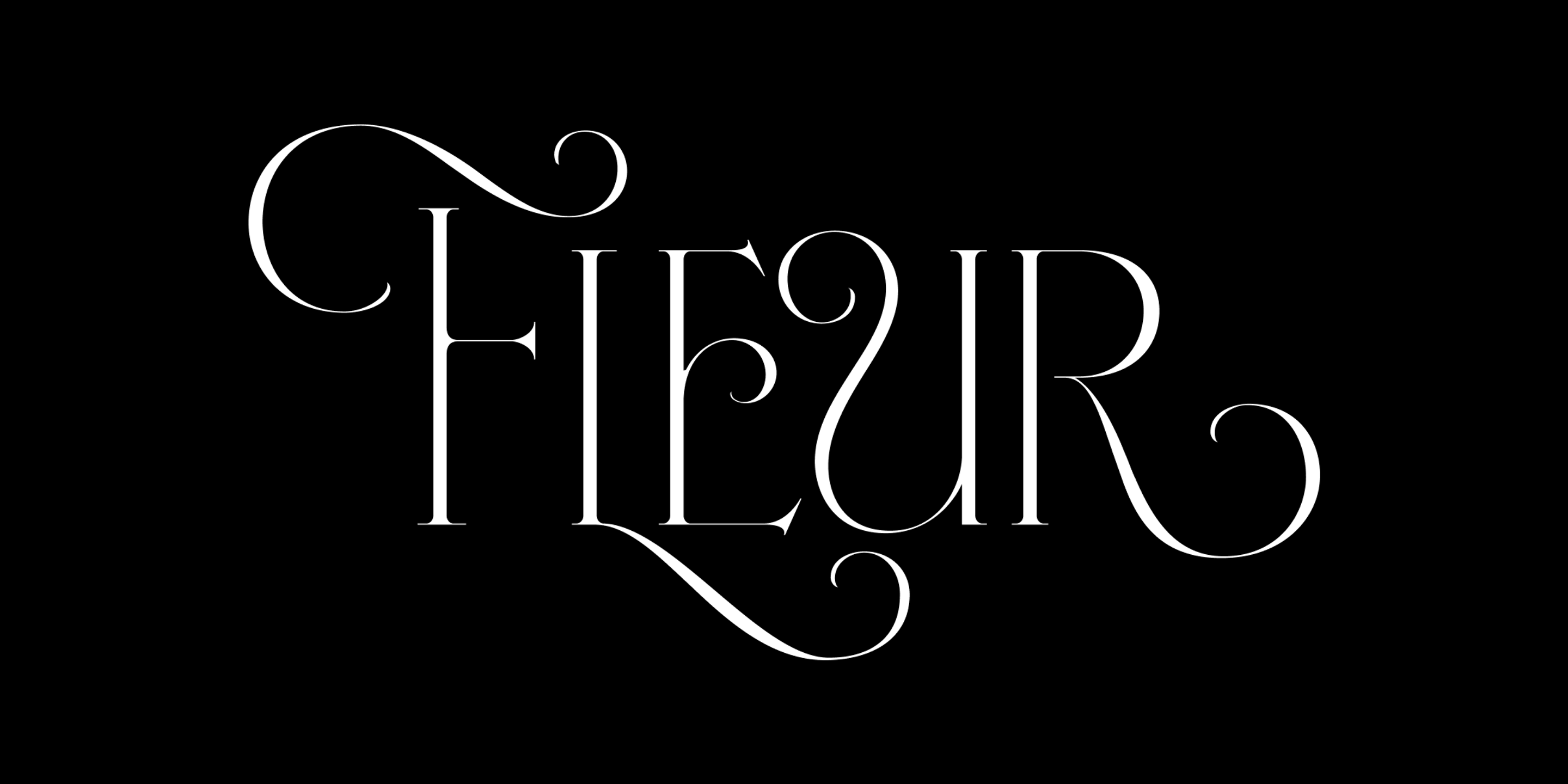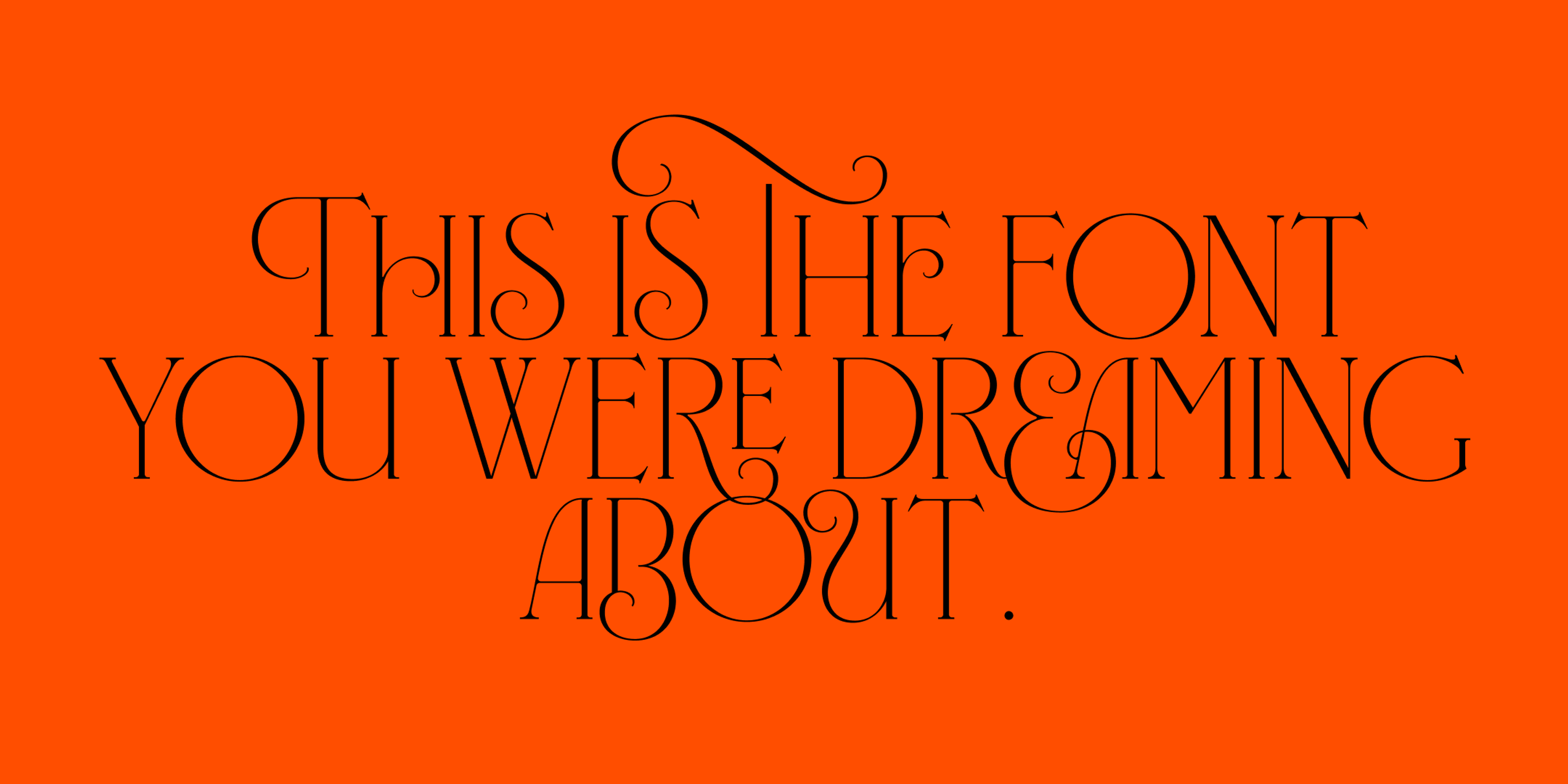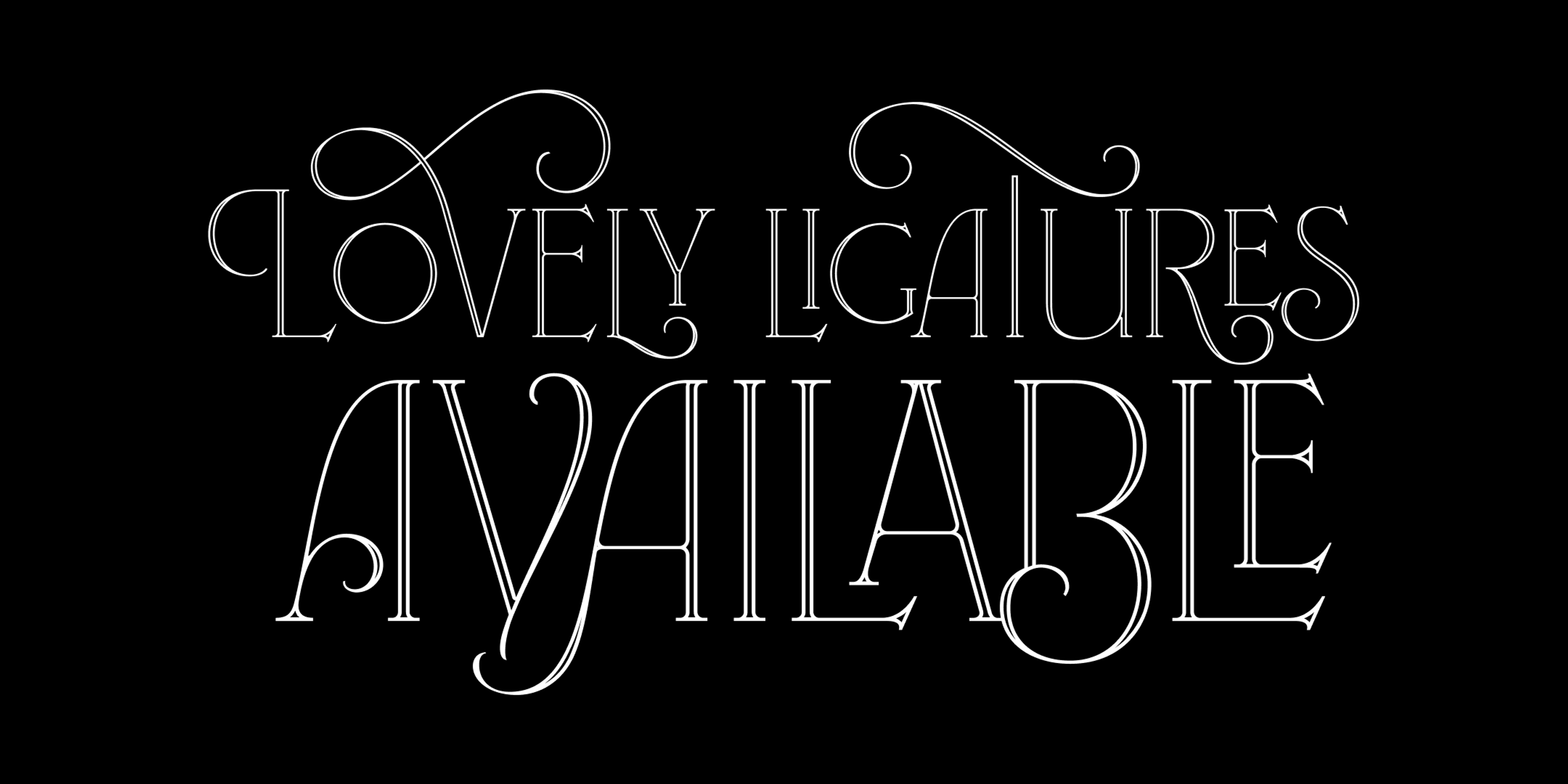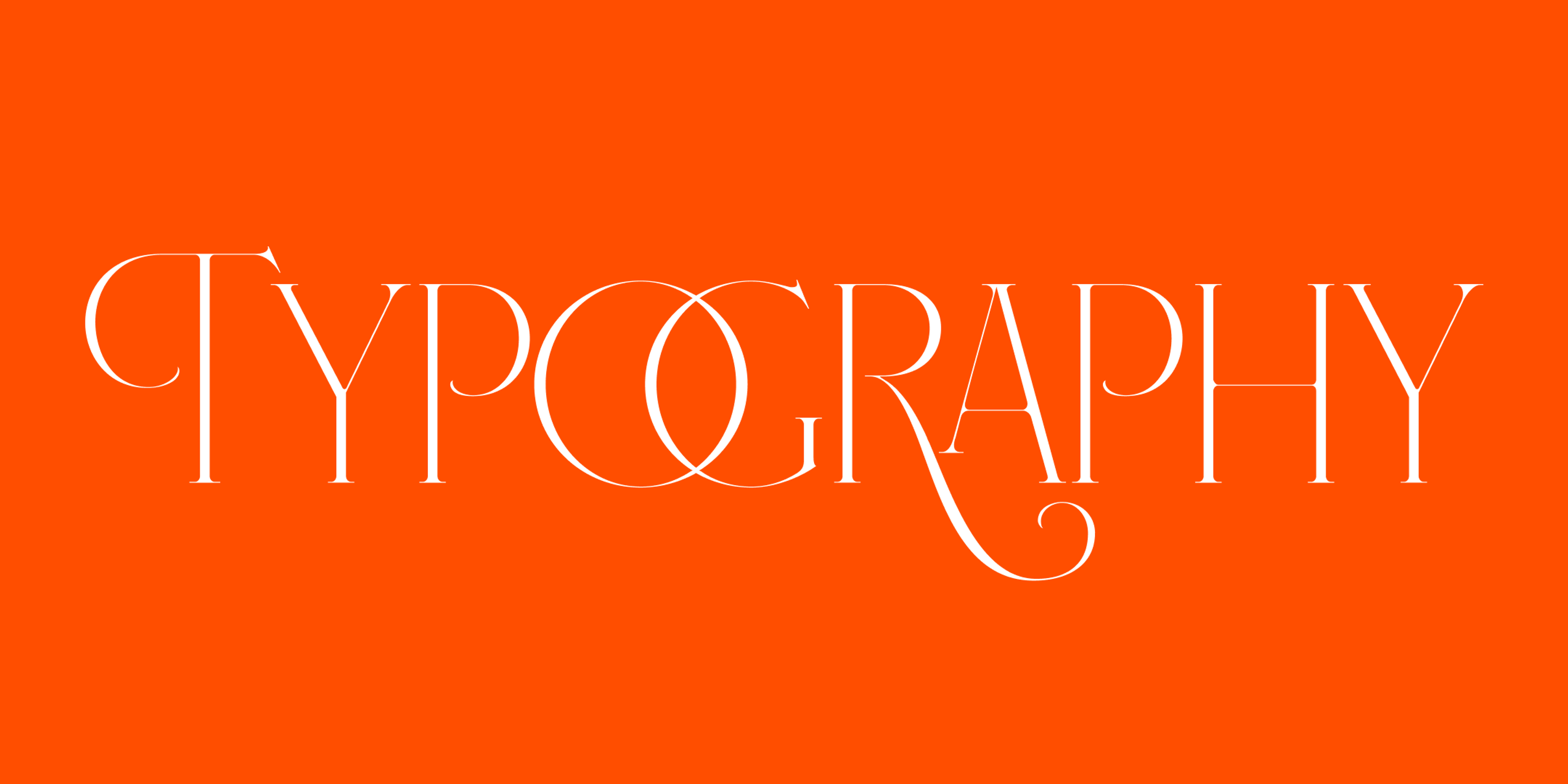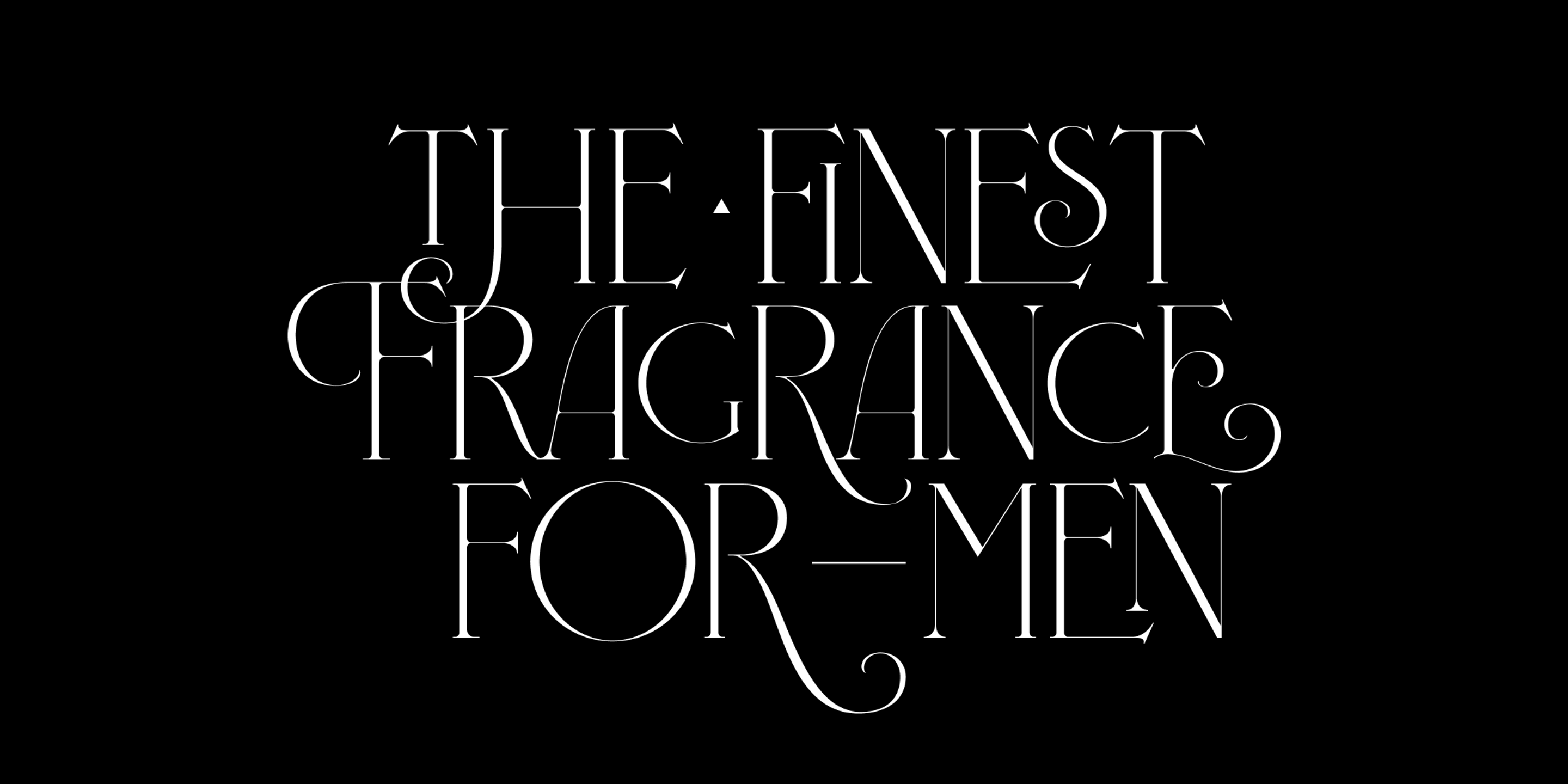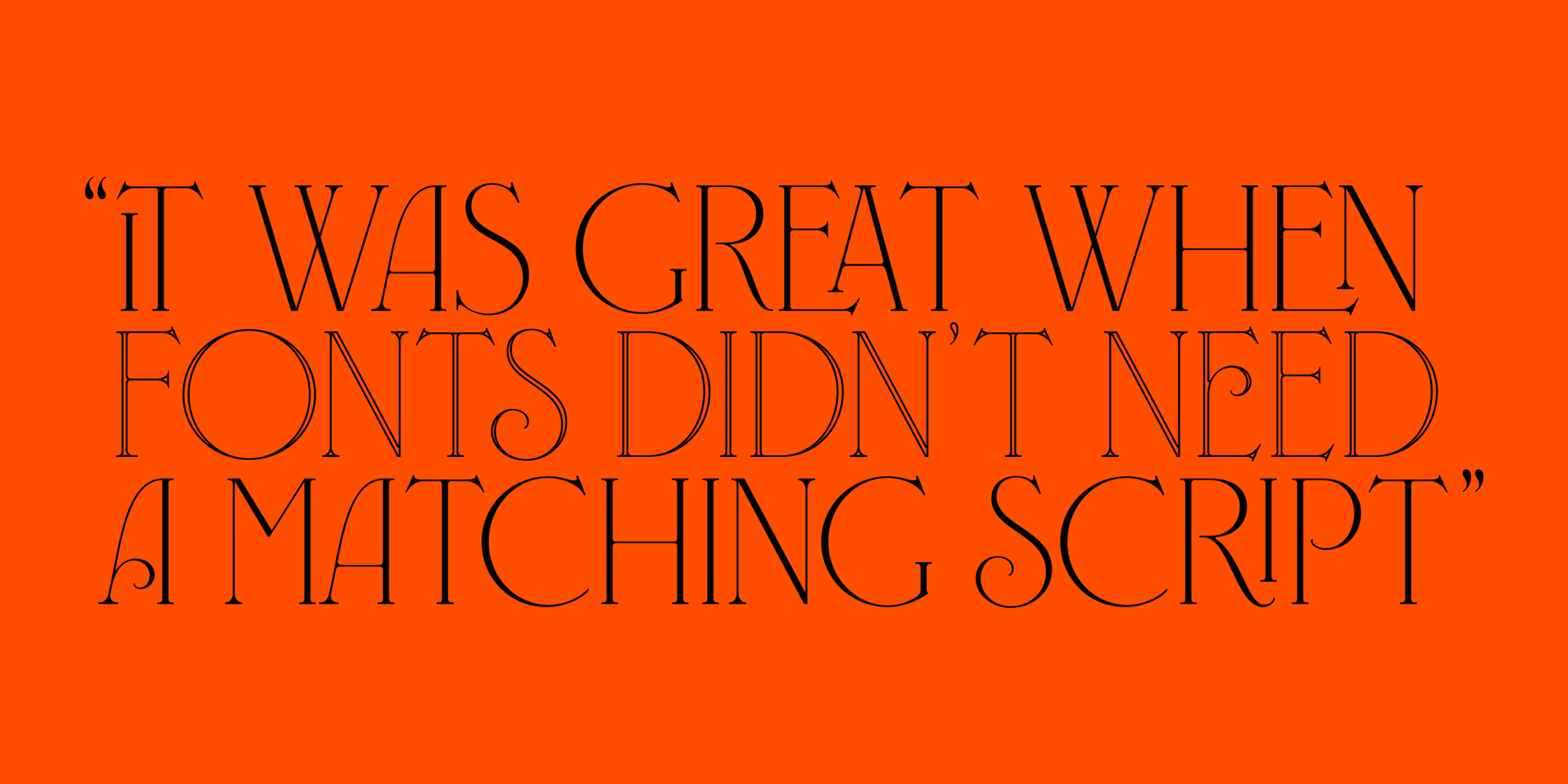
Fleur font by Sproviero Type — the letters F, L, E, U, and R in an ornate, high-contrast serif typeface with swash details
Fleur font by Sproviero Type — the words “THIS IS THE FONT YOU WERE DREAMING ABOUT.” in an ornate, high-contrast serif typeface with swash capitals and ligatures
Fleur font by Sproviero Type — the words “LOVELY LIGATURES AVAILABLE” in an ornate, high-contrast, all-caps serif display face with decorative swashes and interlacing ligatures
Fleur font by Sproviero Type — the word “TYPOGRAPHY” in an all-caps high-contrast serif typeface with an ornate swash on the capital T, a long swash on the capital R, and a double-story O.
Fleur font by Sproviero Type — the words “THE FINEST FRAGRANCE FOR MEN” in a high-contrast serif typeface with ornate swashes and ligatures.
Fleur font by Sproviero Type — the upright serif words “IT WAS GREAT WHEN FONTS DIDN’T NEED A MATCHING SCRIPT” with some letters featuring double outlines or swash-like flourishes
Fleur is a luxurious all-caps display typeface inspired by the dreamy opulence of Paris and the ornate beauty of the Palais Garnier. With Art Nouveau fluidity, Didone structure, and a wealth of interlacing ligatures and swash alternates, Fleur delivers operatic elegance and expressive flair to any design. Ideal for perfume labels, fashion editorials, book covers, boutique logos, and storefronts — this font family was made to be admired. Use Fleur and profitez de la vie.
• Common Ligatures
• Discretionary Ligatures
• Historical Ligatures
• Stylistic Alternates
• Stylistic Sets
• Swashes